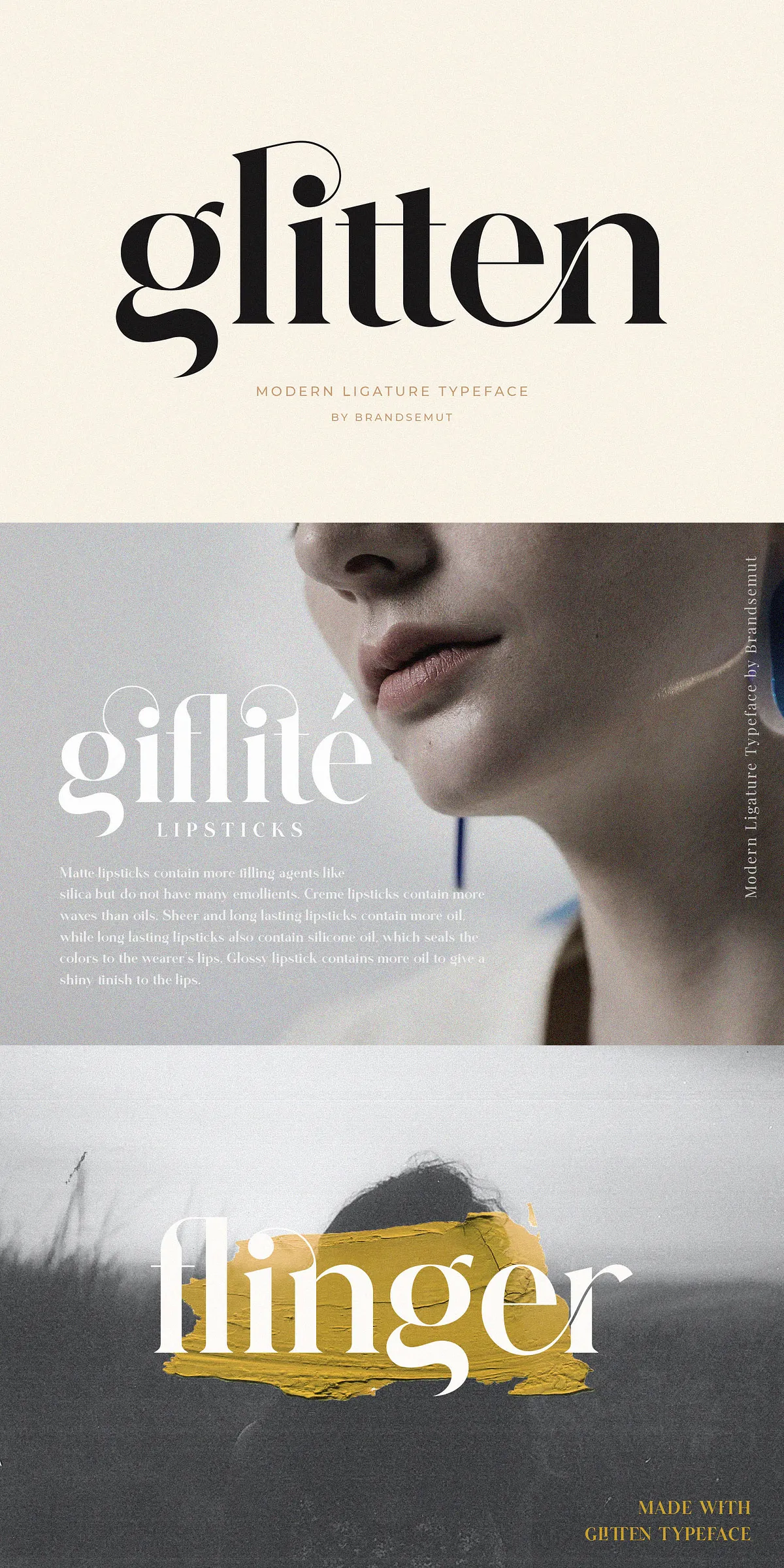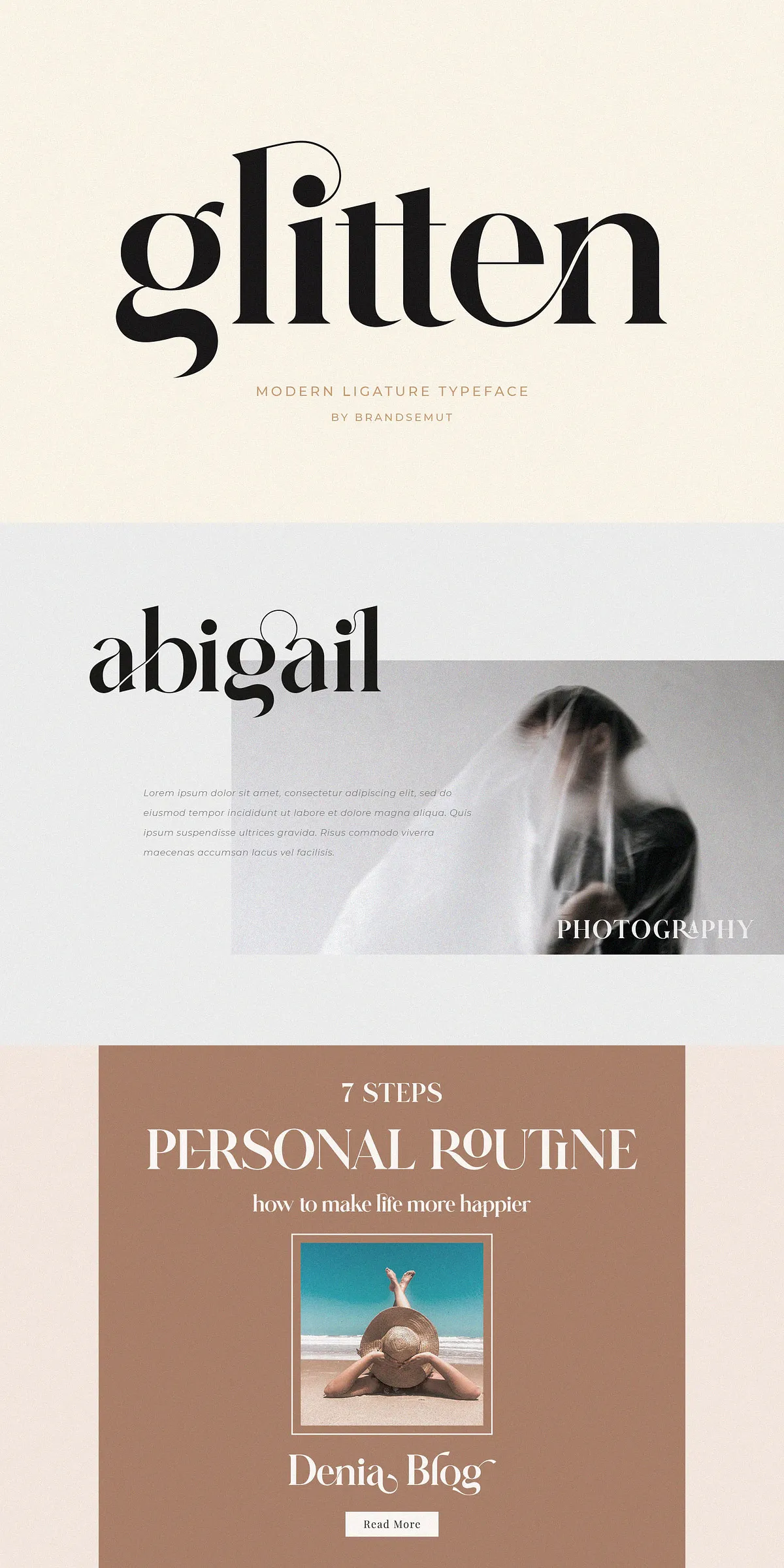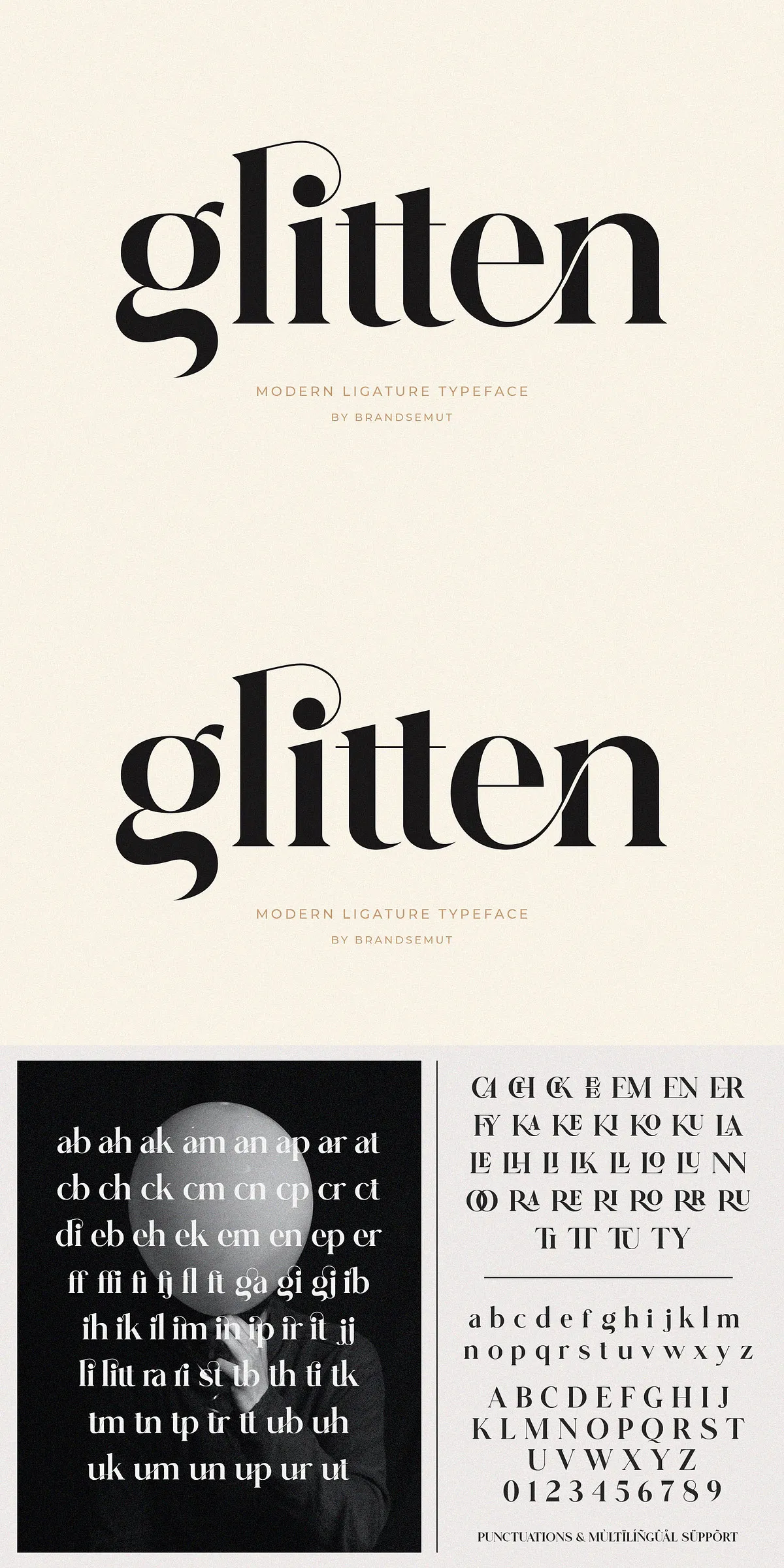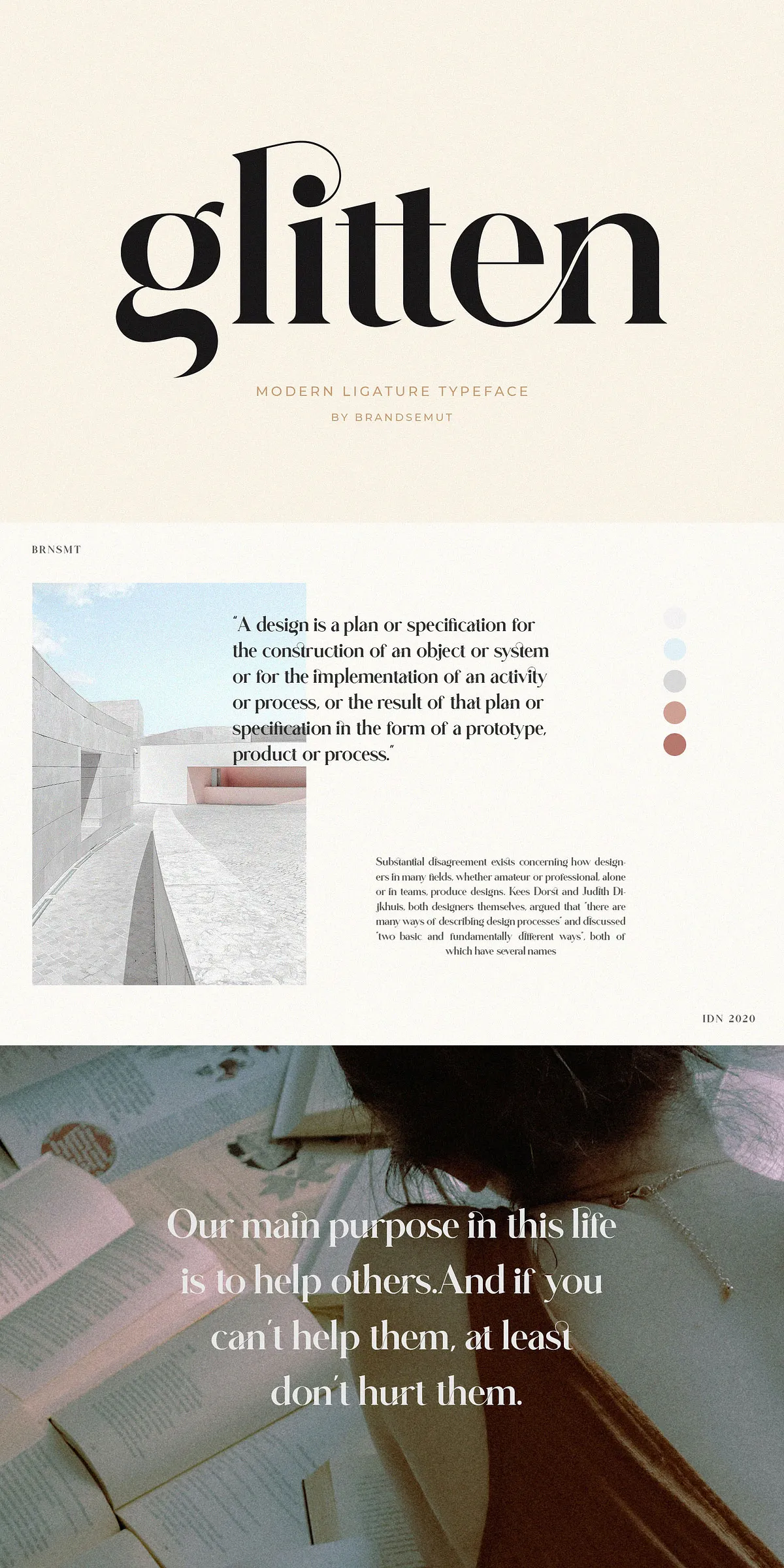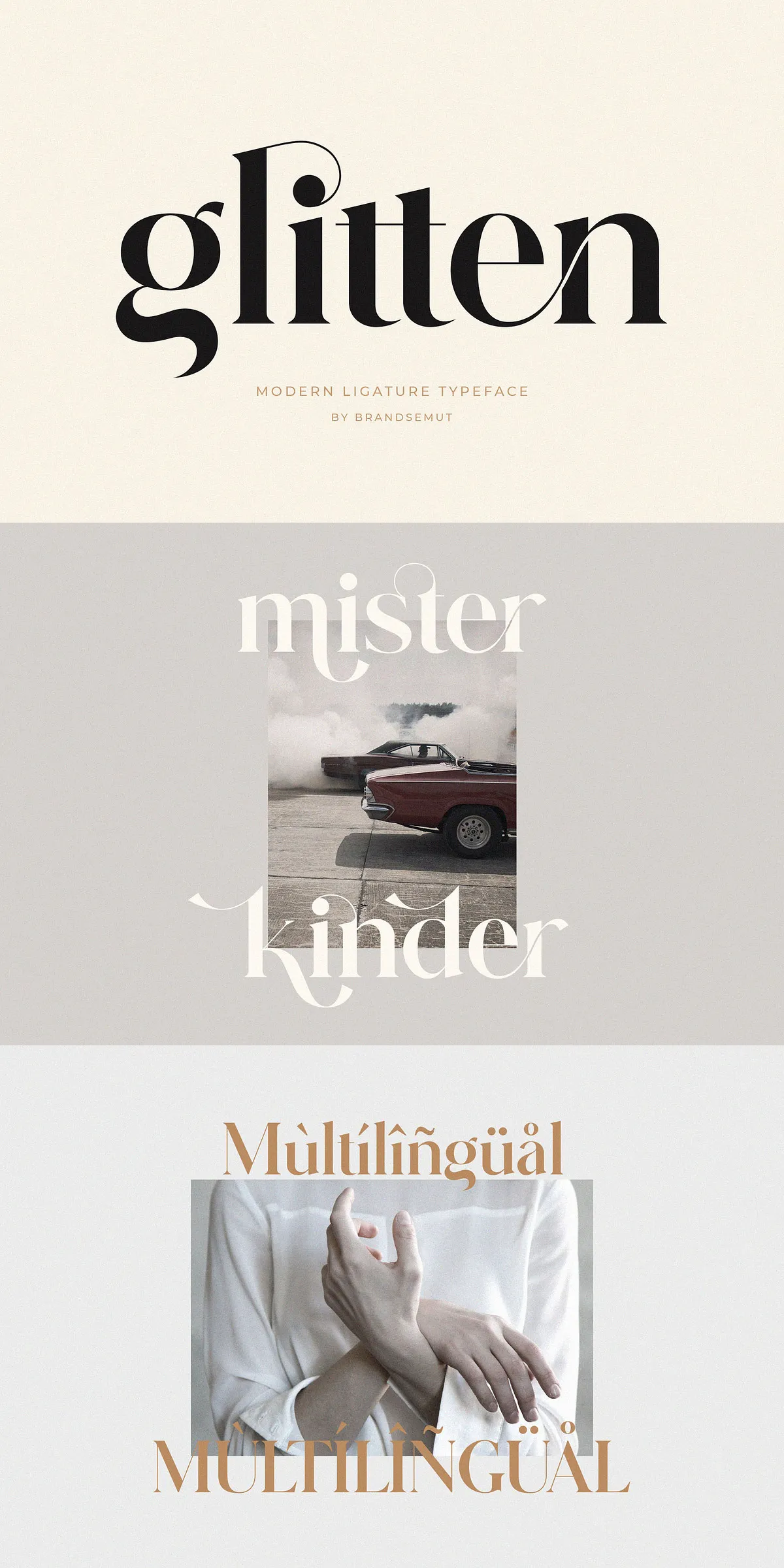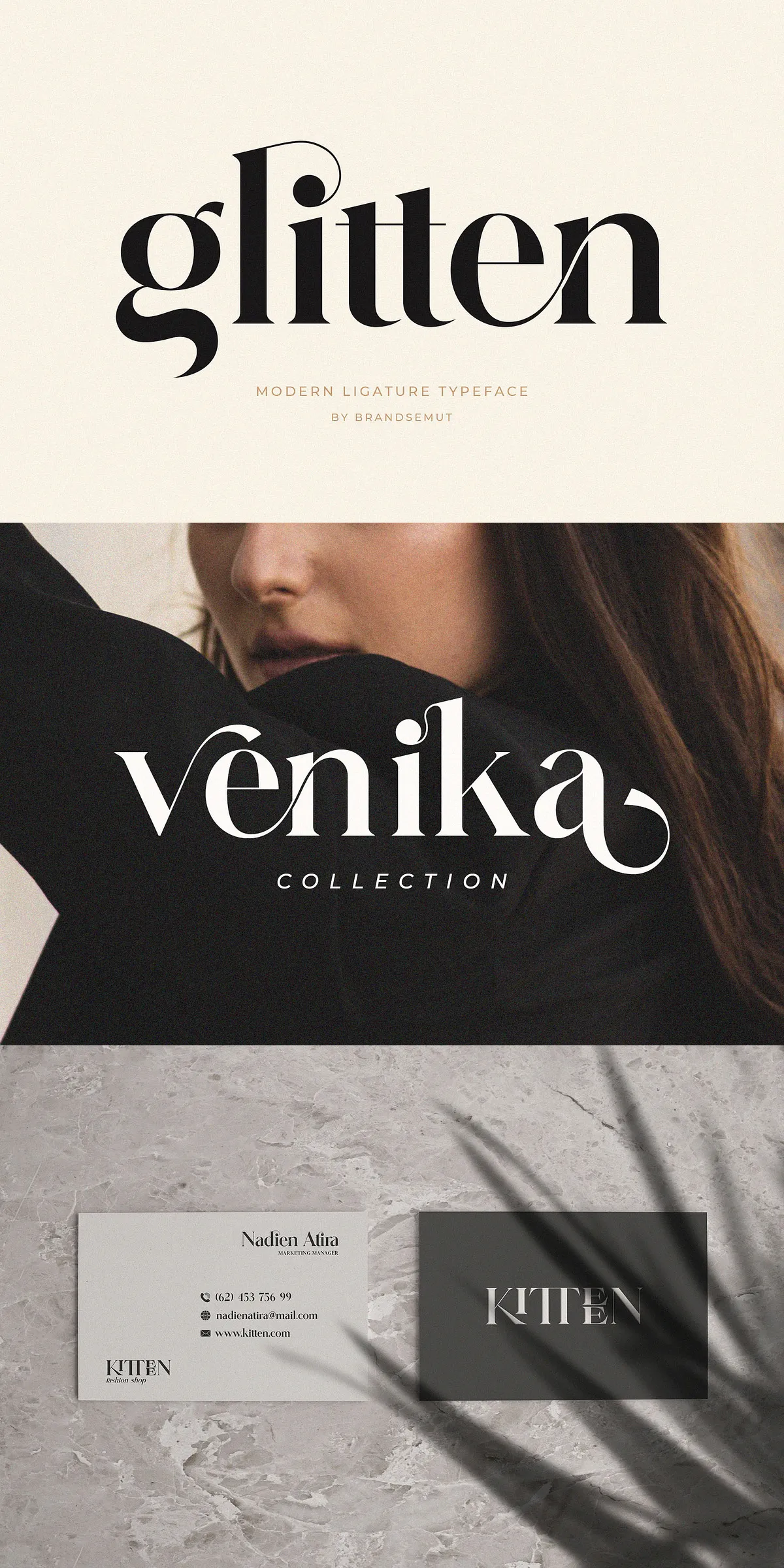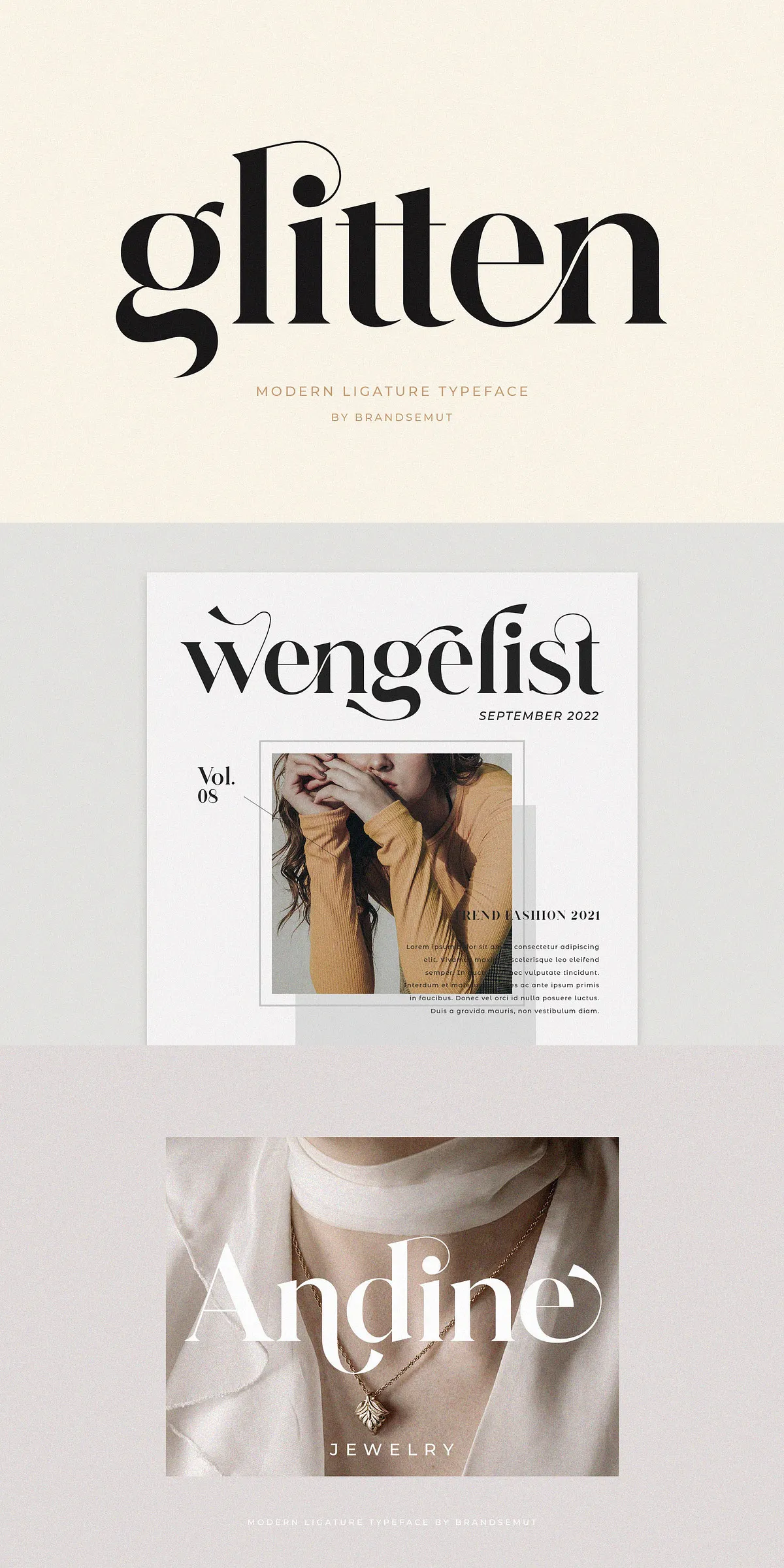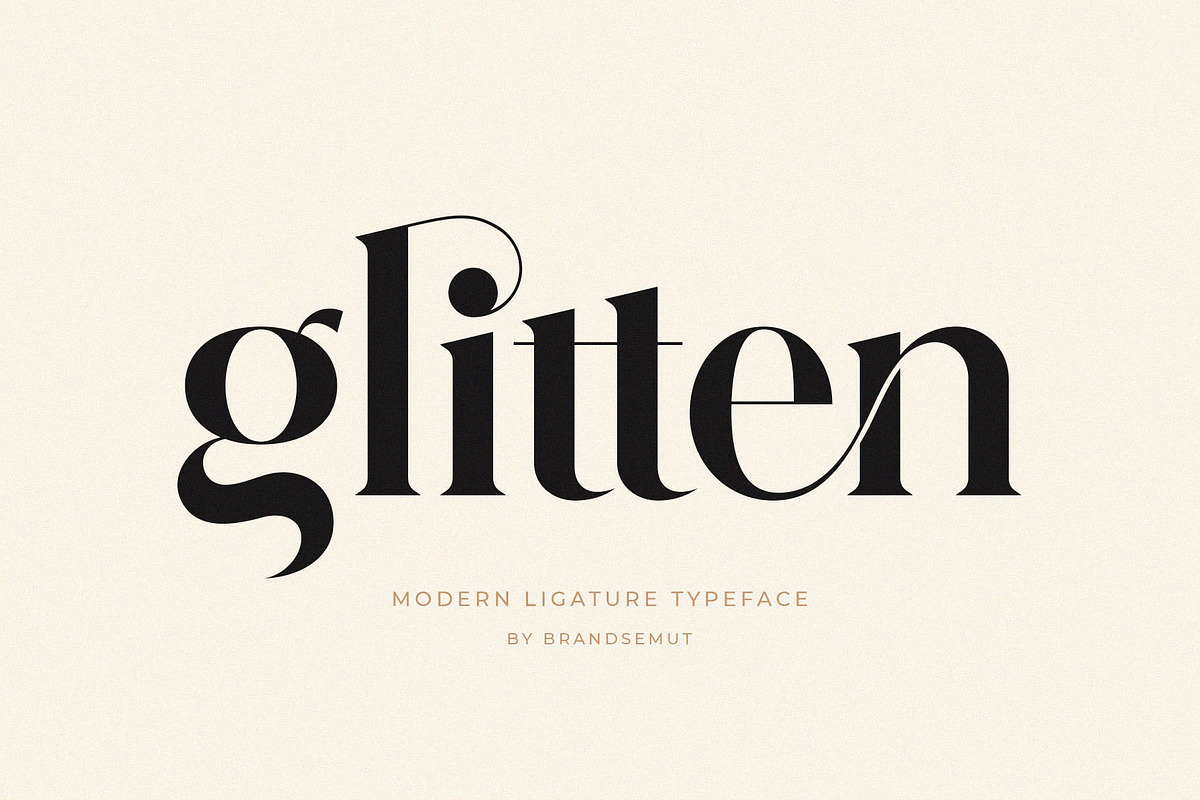
Glitten || Ligature Serif Font
Introducing Glitten Modern Ligature Serif, a typeface that redefines modern elegance and sophistication in typographic design. Crafted with precision and style, Glitten offers a clean, polished look that adds a distinct touch of class to any project. Whether you are designing striking headings, compelling logos, premium product packaging, or refined invitations, Glitten stands out as the perfect partner to elevate your creative vision.
A Typeface Designed for Impactful Display Use
Glitten is best suited as a display font, making it an ideal choice for headlines and prominent text elements where clarity and style are paramount. Its sharp, smooth curves combined with clean lines create a harmonious balance that enhances readability while maintaining a luxurious aesthetic. This font is not just a letterform; it is a statement of modernity and refinement that commands attention.
Powerful OpenType Features and Extensive Ligature Collection
Built to empower designers, Glitten incorporates OpenType features that provide unmatched versatility. With an impressive collection of 103 ligatures, this typeface brings fluidity and elegance to your text, eliminating awkward spacing and promoting smooth visual flow. These ligatures offer creative freedom, allowing you to customize the appearance of your typography with stylistic flourishes that captivate the eye and elevate your design’s professionalism.
Complete Character Set with Multilingual Support
Glitten goes beyond aesthetics by providing comprehensive support for multiple languages, ensuring your message reaches diverse audiences globally. The font includes alternate glyphs, numerals, punctuation marks, and accented characters, making it equally compatible with various linguistic needs. This global accessibility makes Glitten the perfect choice for international branding, editorial projects, and marketing materials targeting a broad demographic.
Applications That Benefit from Glitten’s Elegance
This serif typeface shines in a variety of creative contexts, including:
• Logos and Branding: Create distinct and memorable brand identities that convey sophistication and professionalism.
• Magazine Titles and Editorials: Enhance visual storytelling with headlines that draw readers in.
• Product Packaging: Add a touch of class and refinement to luxury goods and artisanal products.
• Invitations and Event Graphics: Deliver an elegant impression for weddings, corporate events, and special occasions.